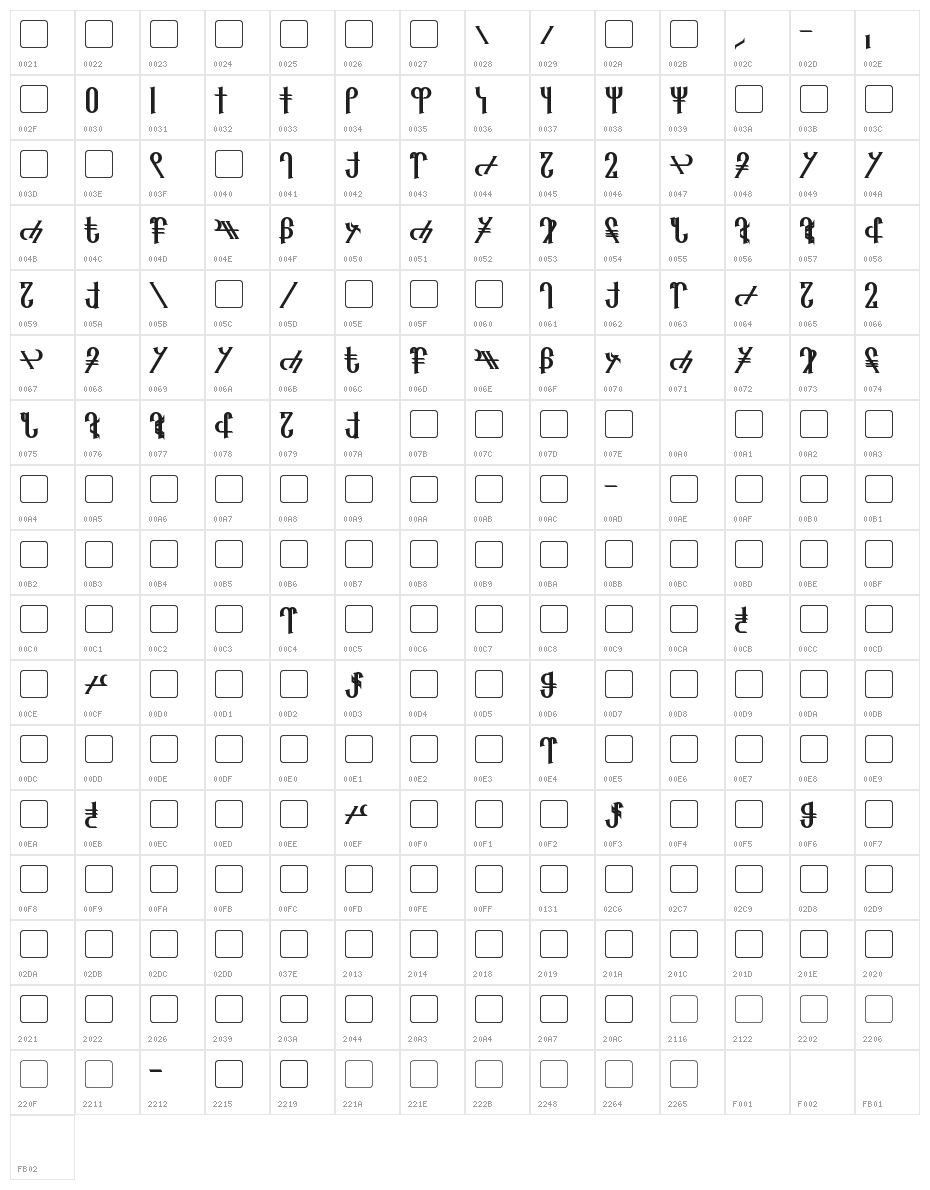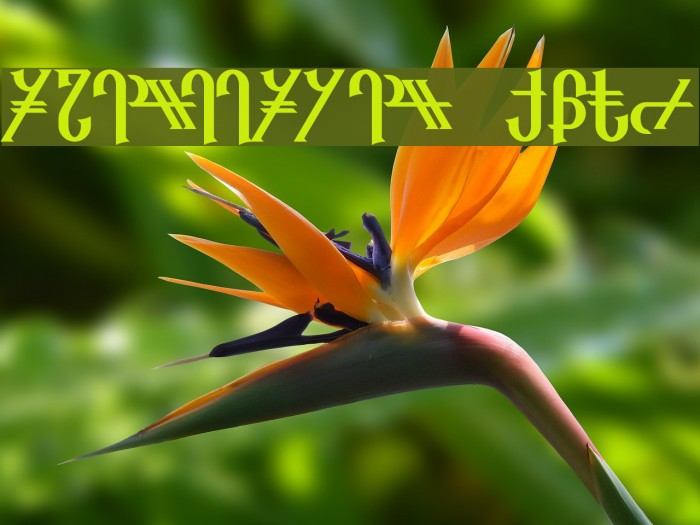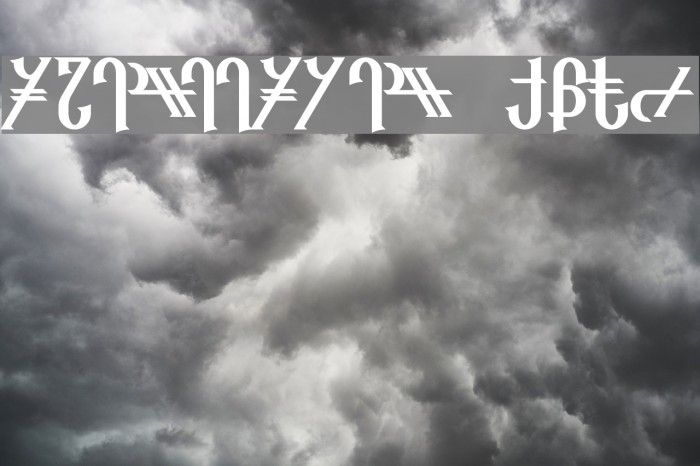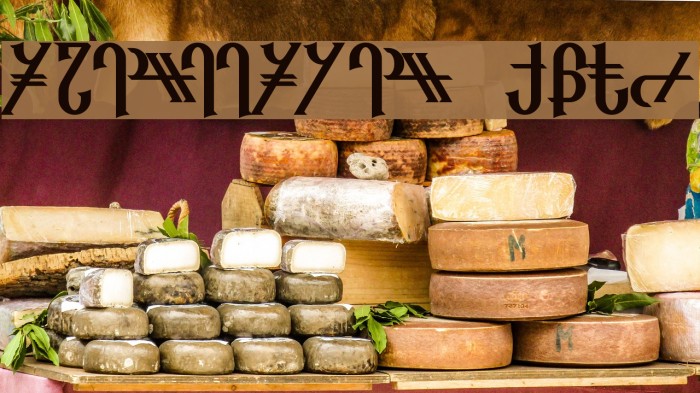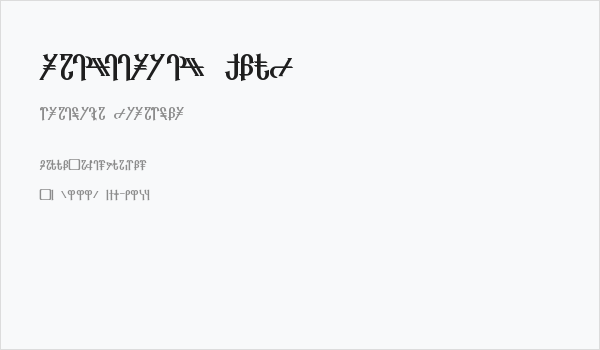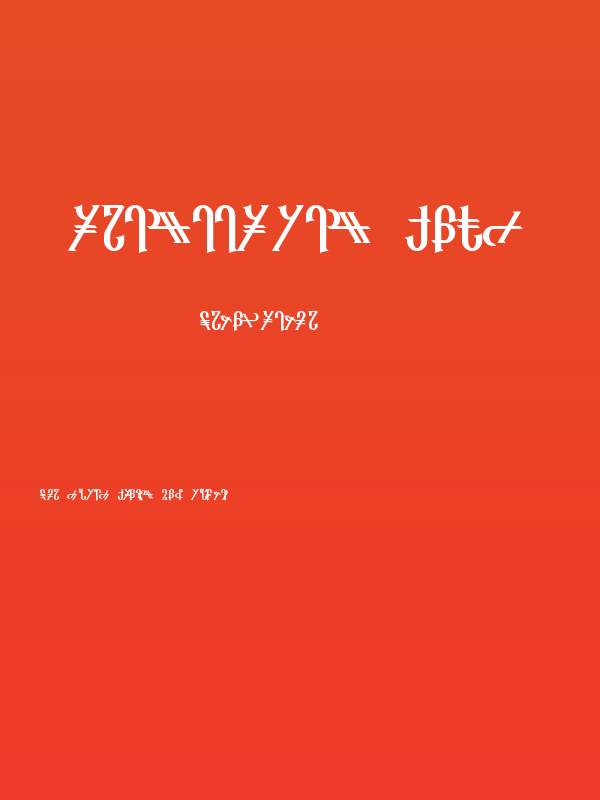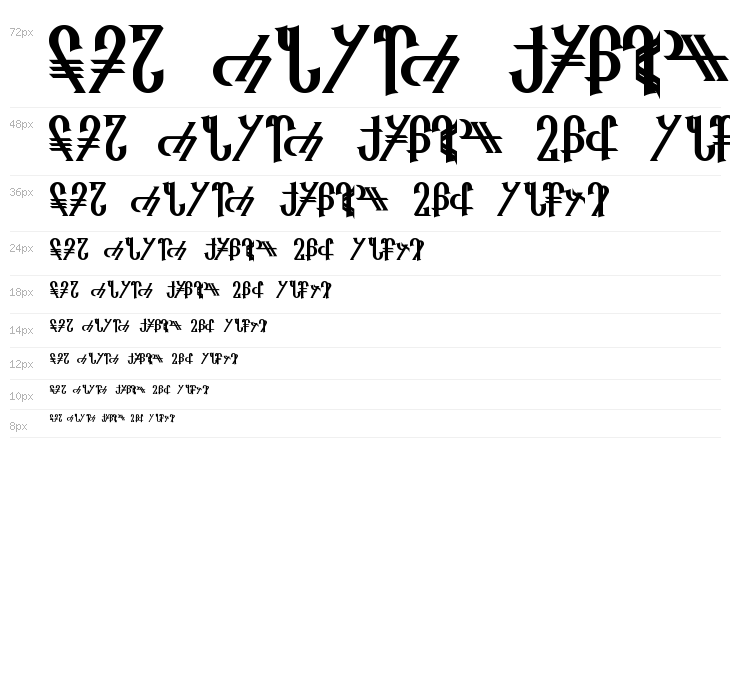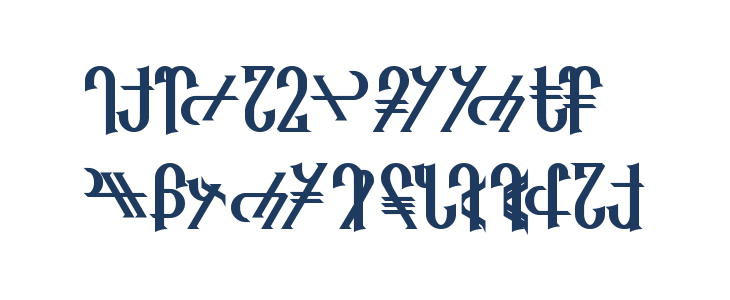
Reanaarian Bold Font
This font features a highly decorative and stylized design, with intricate curves and sharp angles that create a unique and artistic appearance. The characters are bold and have a strong presence, making them ideal for attention-grabbing designs. The font's elaborate style is reminiscent of ancient scripts or fantasy-themed typography, with a modern twist. The strokes are thick and consistent, providing a sense of strength and stability. The overall look is both mysterious and elegant, suitable for projects that require a distinctive and memorable typeface.
| Proposed Projects | Perfect for fantasy-themed posters, book covers, video game graphics, or any project needing a unique and artistic touch. |